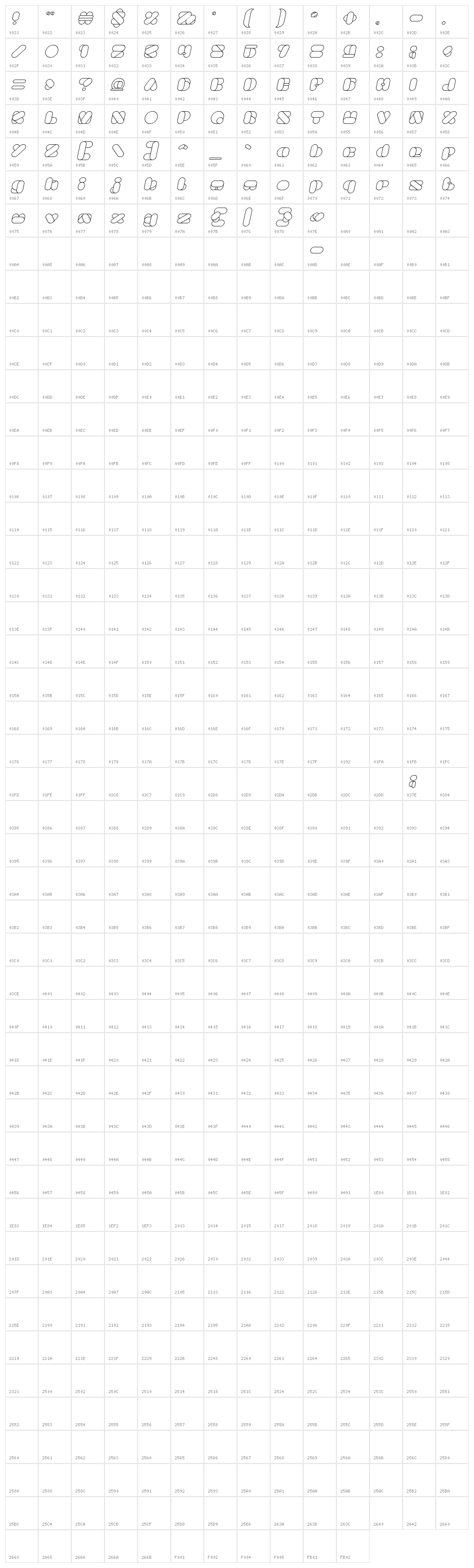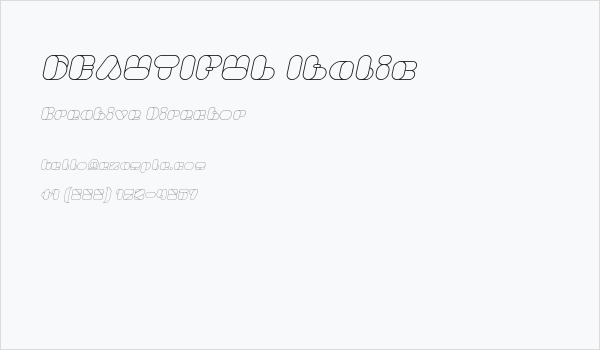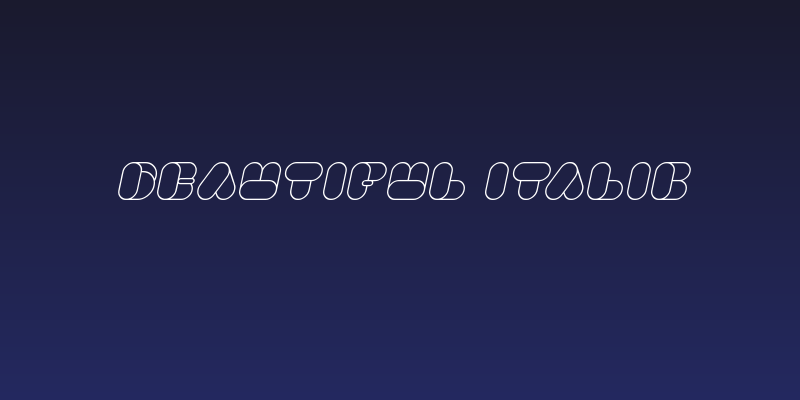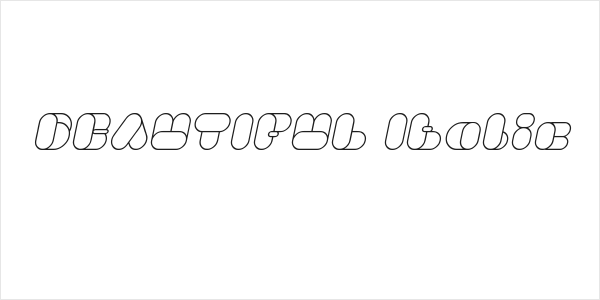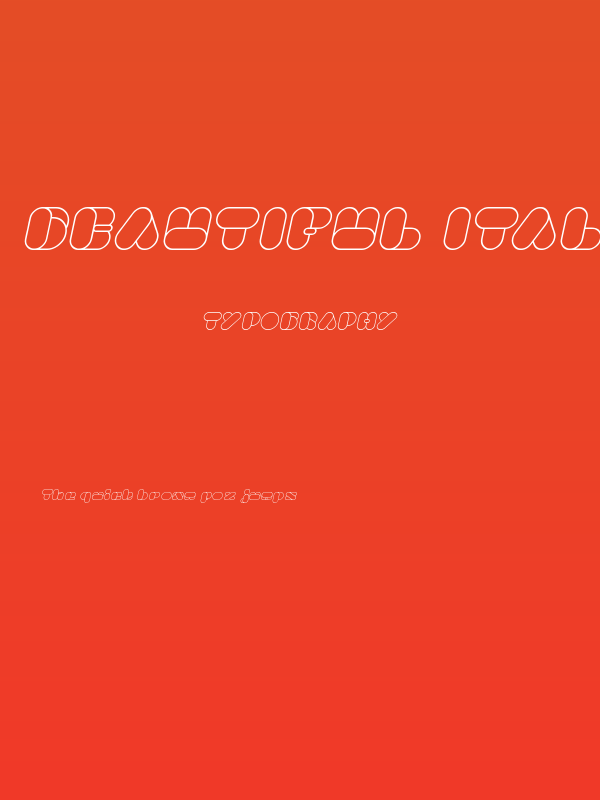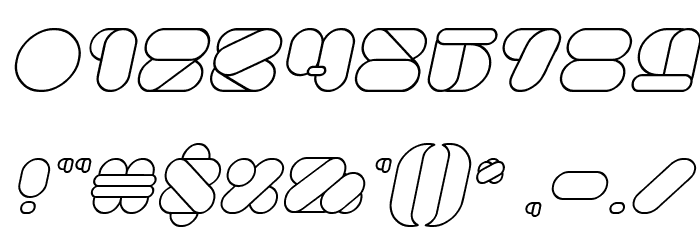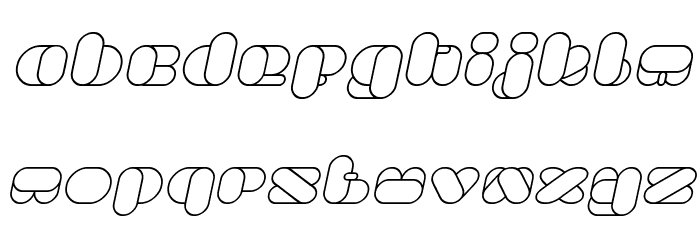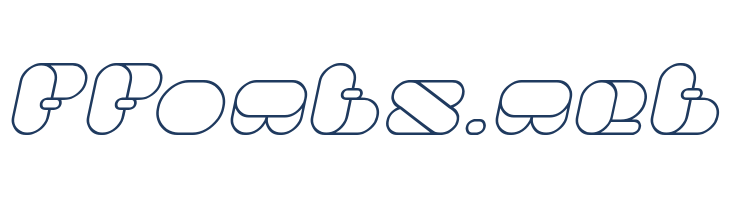
BEAUTIFUL Italic Font
This font features a unique, modern design with a distinct geometric style. Each character is composed of overlapping circular and elliptical shapes, creating a sense of movement and fluidity. The lines are consistent in thickness, giving it a uniform appearance. The uppercase and lowercase letters maintain a cohesive look, with rounded edges and an open, airy feel. Numbers and special characters follow the same design principles, ensuring a harmonious overall aesthetic. This font stands out with its artistic and playful vibe, making it ideal for creative projects.